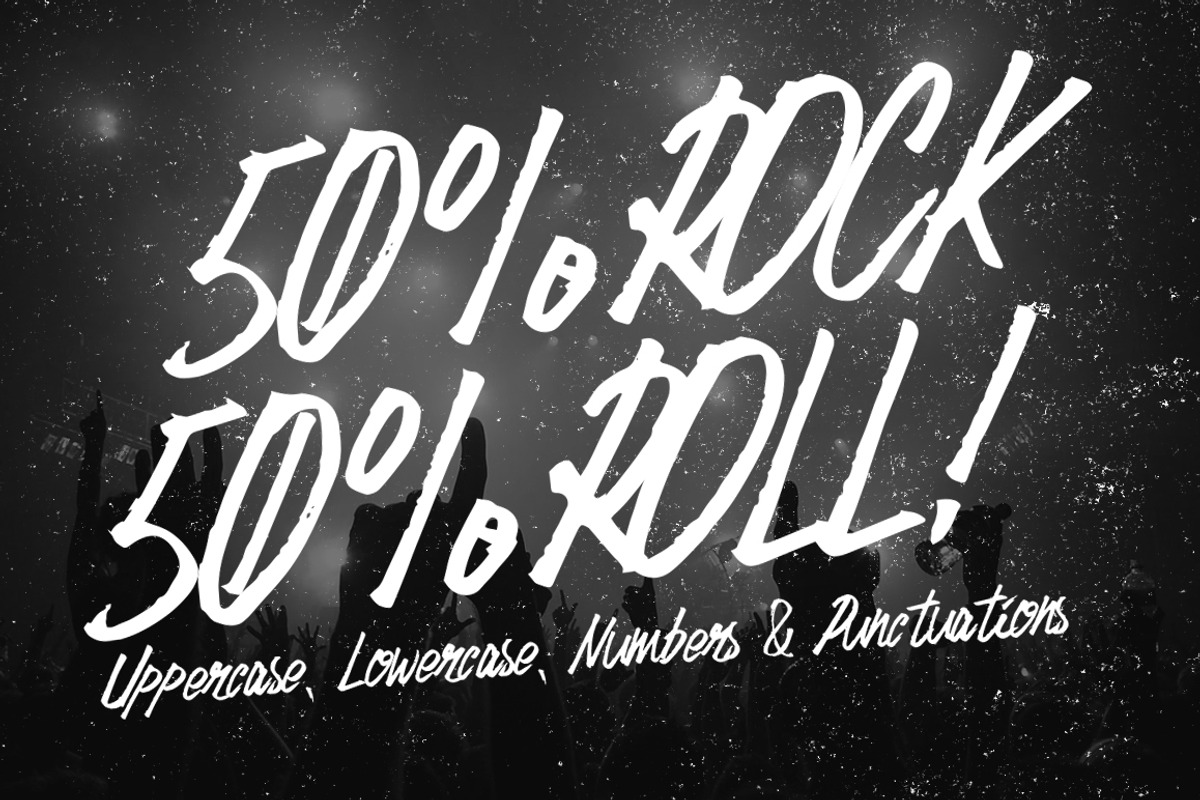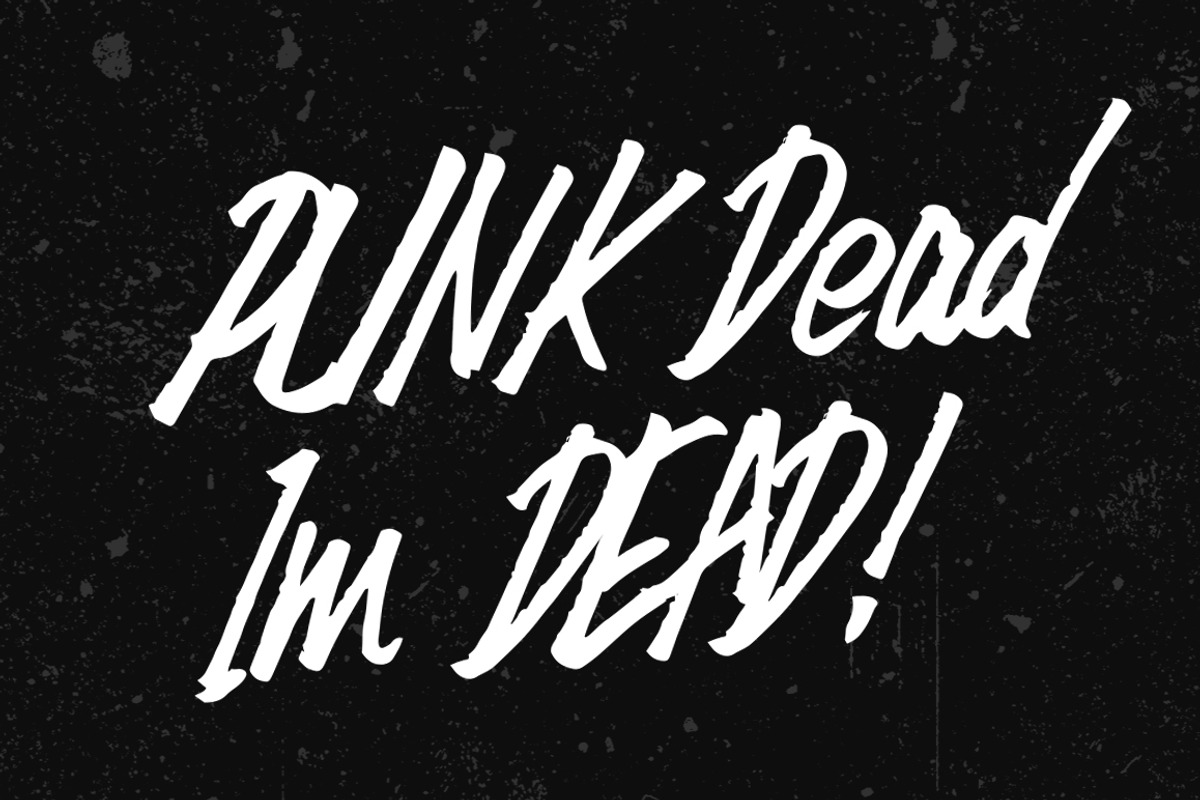
Scamfuk Typeface
Scamfuk Typeface by Ian Irwanwismoyo is a font selected for branding, posters, packaging, typography.
- A sequel from my bestseller Skumfuk Typeface, same feel but different styles, comes with more glyphs.
- Uppercase, Lowercase and Punctuations available Fit for your band stuff, posters, with brush feels and rebel vibes Dont forget to check out
Why Scamfuk Typeface is worth a look
Scamfuk Typeface by Ian Irwanwismoyo fits naturally into Branding, posters, packaging, typography.